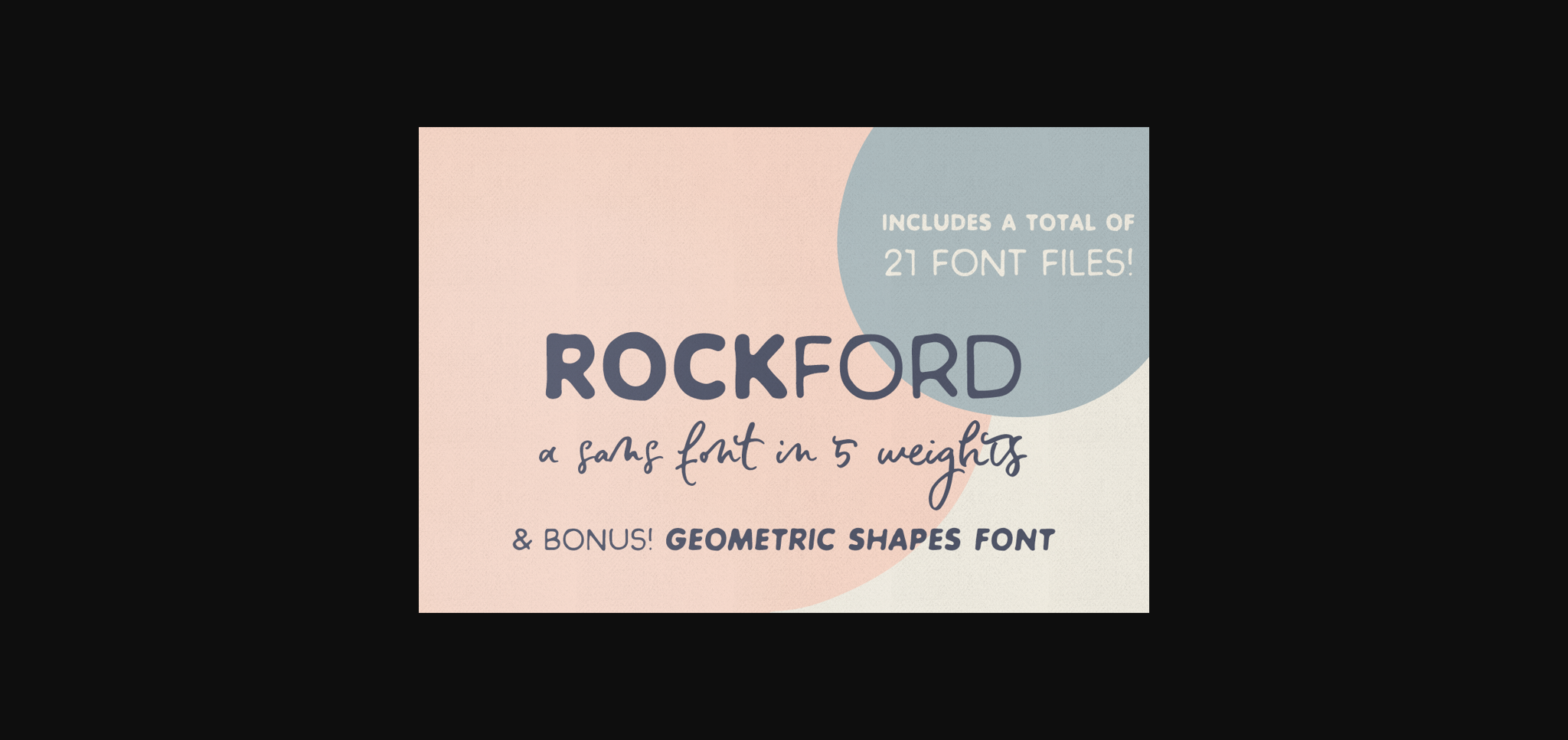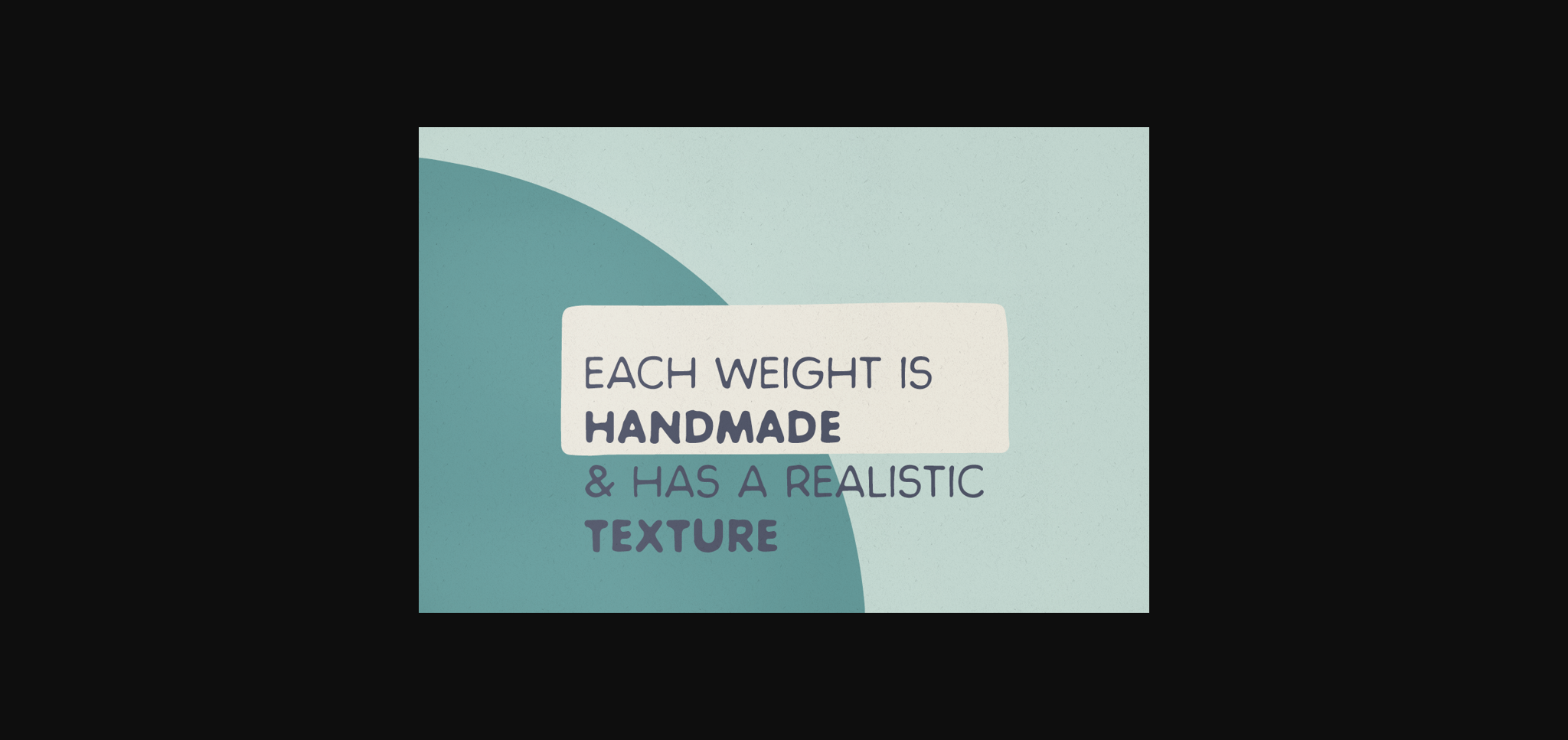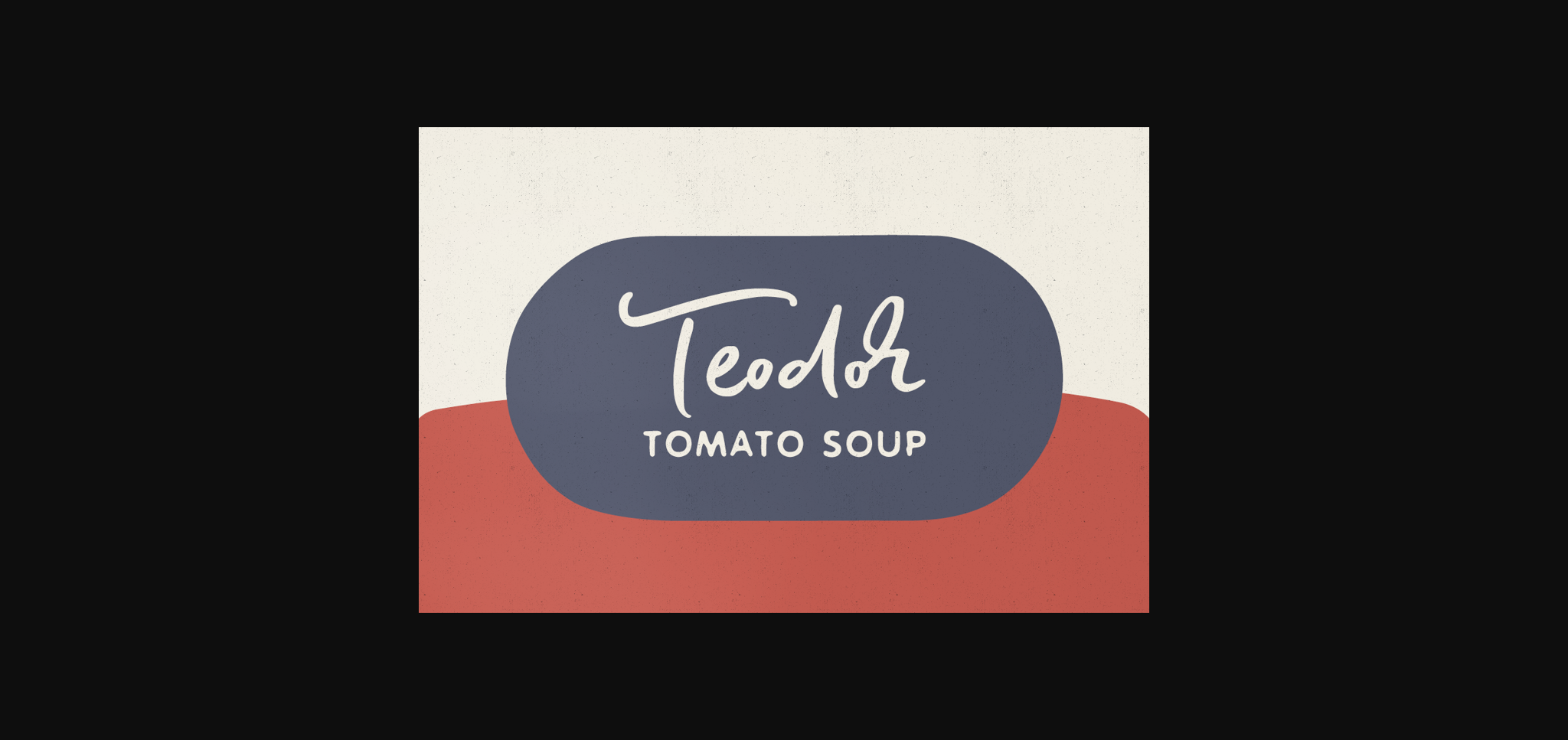
About Rockford Font
Rockford is a hand-drawn sans serif font in all caps and 5 weights. It includes bonus shapes fonts that are perfect to add some geometric elements to your designs. No matter the topic, this font will be an incredible asset to your fonts’ library, as it has the potential to elevate any creation.